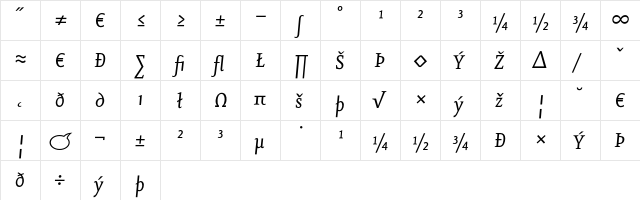
Eureka Regular Italic Exp
Design Context for Eureka Typeface
Eureka offers clean, dependable letterforms without strong stylistic allegiance, making it a practical choice for designers who need flexibility. The dynamic lean of this cut emphasises speed and emphasis in any layout.
Pro Tip: Try Eureka for annotation and caption copy alongside an upright companion — the contrast in angle creates a dynamic but ordered typographic system.